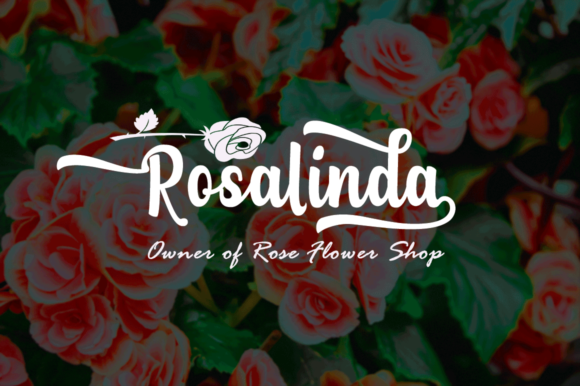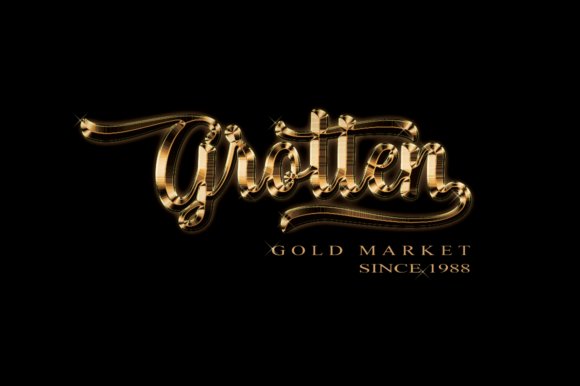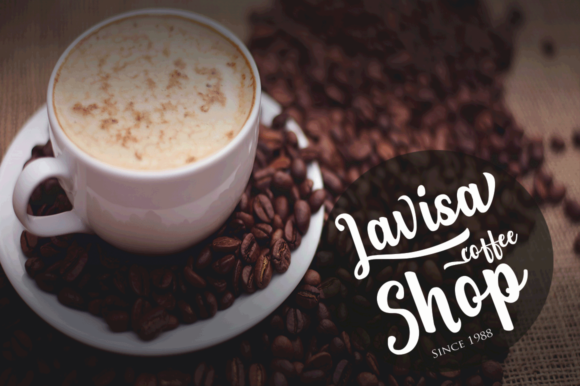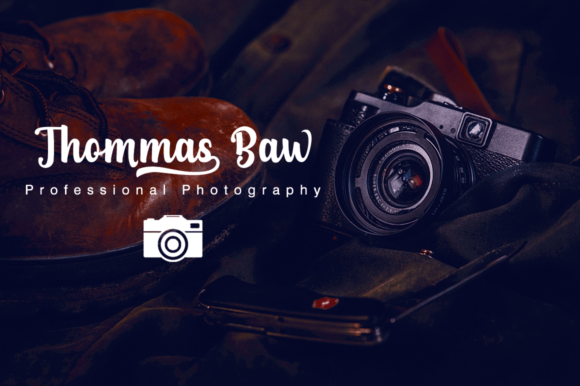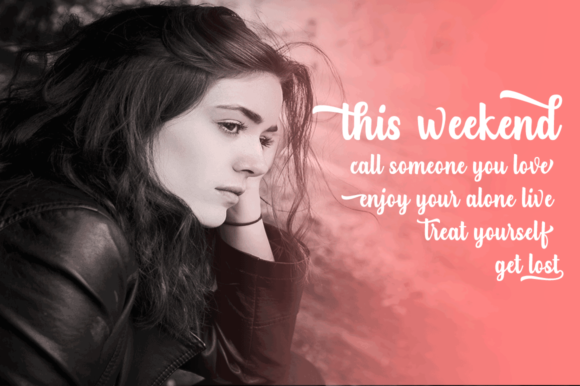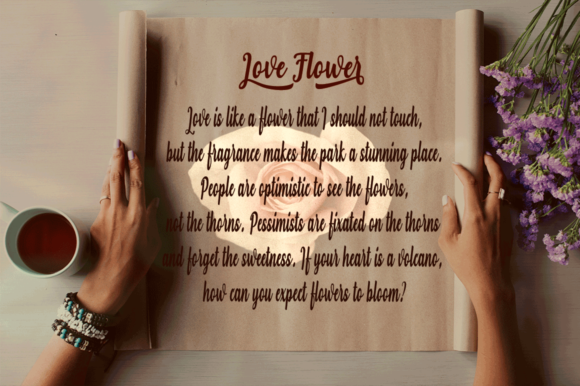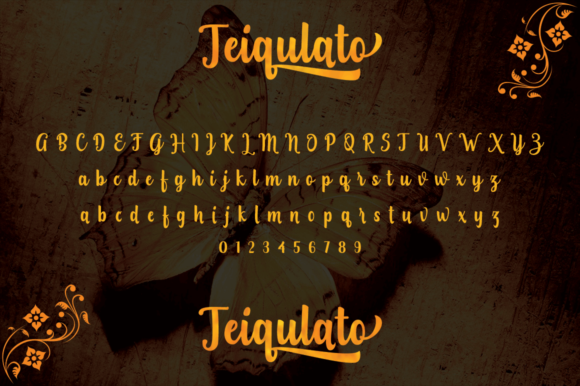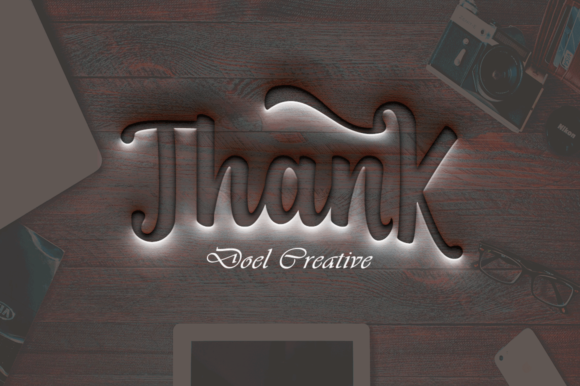
Teiqulato Script Font
The Teiqulato is a calligraphy script with a modern handwriting style. It is suitable for logos, corporate symbols, invitations, letterheads, and much more!